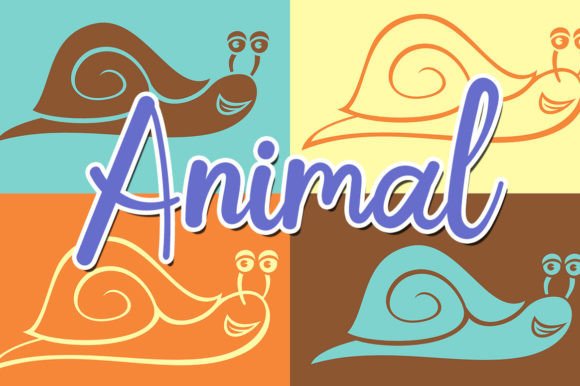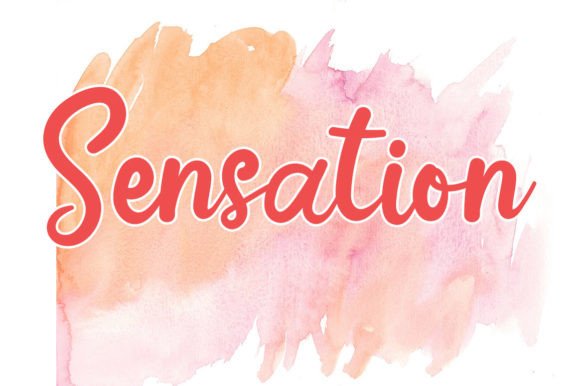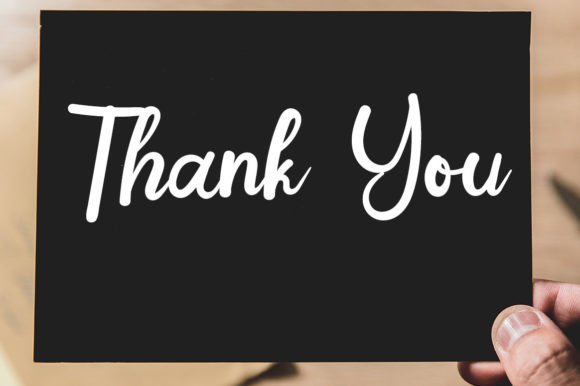
The Perfect Blend of Elegance and Joy: Calligraphic Font
Have you ever been working on a design project, pouring your heart and soul into every detail, only to feel like something is missing? That’s when I fell in love with the Calligraphic Font – a beautiful, sweet font that adds a touch of joy to any design. Its fresh, clean, and elegant style makes it perfect for both formal and informal projects.
As a designer, you know how challenging it can be to find the right font to bring your vision to life. That’s where the Calligraphic Font comes in – a game-changer that simplifies your design process and adds a touch of sophistication to your work. With its versatility and timeless charm, this font is a valuable addition to any designer’s toolkit.
Key Features of Calligraphic Font
- Unique Characteristics: Calligraphic fonts are designed to mimic the style of handwritten calligraphy, often featuring flowing lines, elegant curves, and subtle flourishes. They are ideal for creating visually appealing and sophisticated designs.
- Style Options: Calligraphic fonts often come in multiple styles, including regular, italic, bold, and condensed, giving designers the flexibility to choose the perfect style to match their design.
- Legibility: Despite their ornate appearance, calligraphic fonts are designed to be highly legible, making them suitable for use in body text, headings, and titles.
Calligraphic Font Review
Overall, I think the Calligraphic Font is a beautiful addition to any design project. It’s perfect for creating a touch of elegance and sophistication, especially when used in titles and headings. ✨ The intricate details and flourishes add a level of craftsmanship that’s hard to replicate with other fonts.
One of the things that really stands out about this font is its versatility. It can be used in a variety of settings, from formal events to everyday communications, and still looks great. ✨ It’s also incredibly easy to read, even at smaller font sizes.
While the Calligraphic Font is beautiful, there are a few limitations to keep in mind. ⚠️ For one, it can be difficult to read at very small font sizes, especially for people with vision impairments. ⚠️ Additionally, the font can be quite ornate, which may not be suitable for all design projects.
In terms of overall impression, I would give the Calligraphic Font 4 out of 5 stars. It’s a stunning font that’s perfect for adding a touch of elegance to any design project. However, it’s not without its limitations, and designers should be aware of these before using it in their work.
Design Considerations
- Use in headings and titles to add a touch of elegance
- Avoid using at very small font sizes
- Consider using a more straightforward font for body text
- Be mindful of the font’s ornate nature and use it sparingly
Calligraphic fonts are ideal for creating elegant and sophisticated designs, such as:
Wedding invitations, announcements, and stationery.
Business cards, letterheads, and other marketing materials.
Artistic and creative projects, such as posters, flyers, and book covers.
Remember to choose a font that complements your design and message, and don’t be afraid to experiment with different font sizes, colors, and styles to achieve the desired effect.